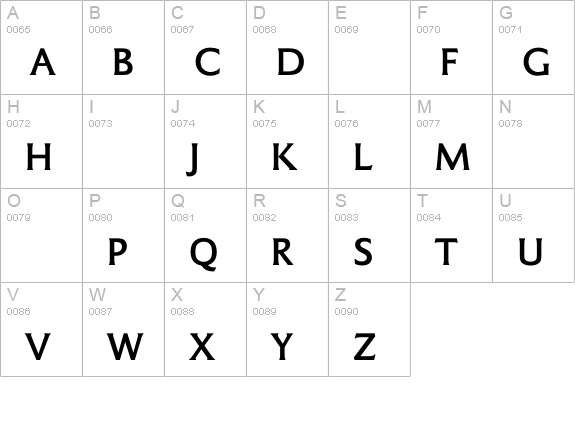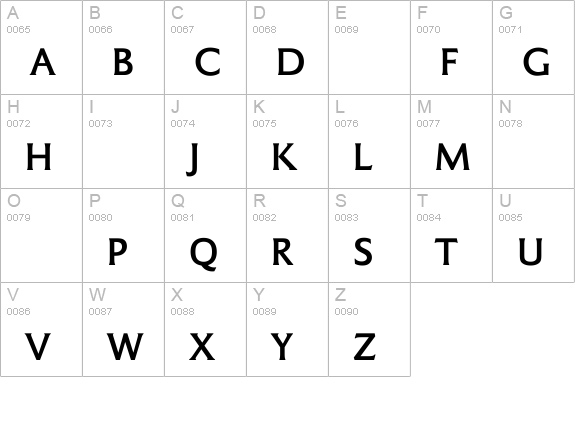
SainsburyBold Font Details
SainsburyBold is a visually striking font that demands attention with its bold and distinctive design. This font is perfect for capturing the essence of strength and confidence in any design project. With its thick and sharp letterforms, SainsburyBold exudes a sense of power and authority, making it ideal for headlines, logos, and branding materials. What sets SainsburyBold apart is not just its stunning aesthetics, but also its versatility. This font effortlessly adapts to various design styles, whether you're going for a modern and sleek look or a more vintage and retro feel. Its clean and crisp lines ensure legibility, even in small sizes, making it suitable for both print and digital applications. But what makes SainsburyBold truly unique is that it is freely available to download at FontsMarket.com. This means that you can access this premium font at absolutely no cost, making it accessible to designers and creatives of all levels. Now, you don't have to compromise on quality or style, as SainsburyBold offers the best of both worlds – a high-quality font with a price tag that won't break the bank. Whether you're a professional designer or a budding artist, SainsburyBold is the perfect addition to your font library. Its bold and impactful design will elevate your projects, leaving a lasting impression on your audience. So don't miss out on this opportunity to enhance your designs with a font that embodies power, versatility, and now, the freedom to download it for free at FontsMarket.com.